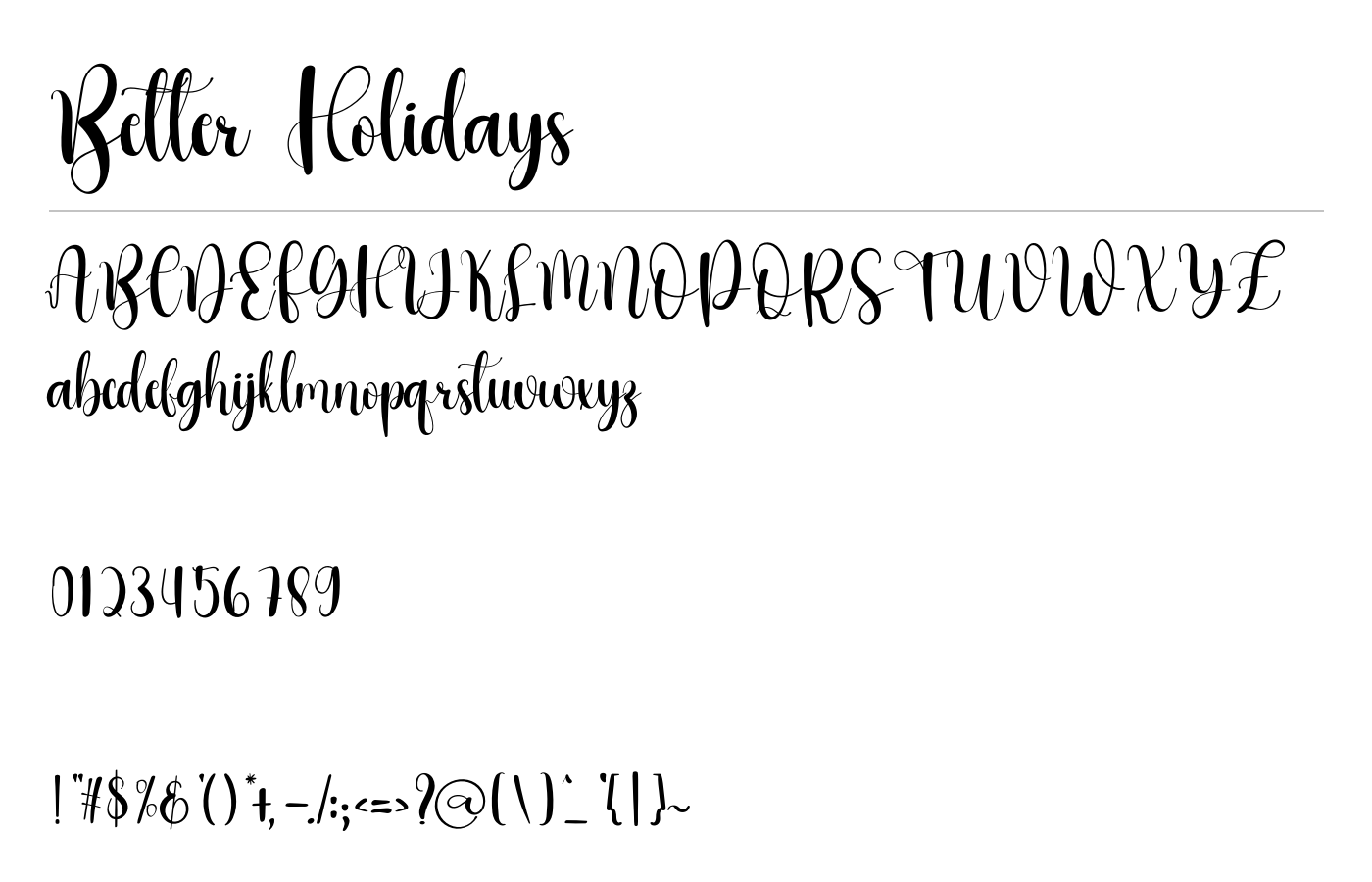
Better Holidays is a charming script font with elegant, flowing strokes and delicate swashes that evoke a festive and joyful atmosphere. Its graceful, hand-lettered style with medium contrast and tall x-height makes it perfect for holiday-themed designs, invitations, and branding that aim to convey warmth and sophistication. This font works beautifully in headlines, logos, and packaging where a personal, celebratory touch is desired.
Better Holidays Font
About Better Holidays Font